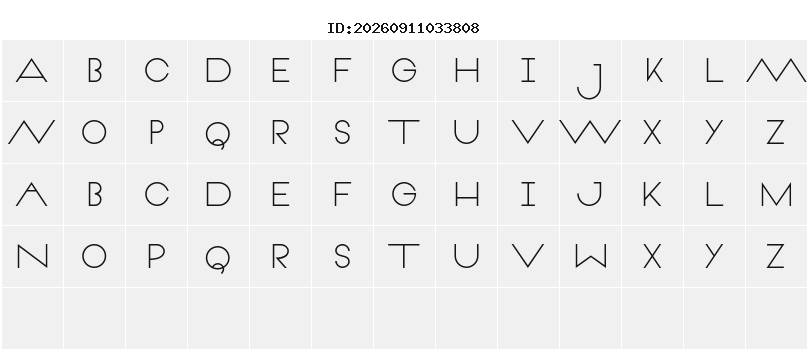
Veron Bold Preview
• Font Name: Veron Bold
• Font ID: PauloR: Veron Bold: 2012
• Full Font Name: VeronBold
• PostScript Name: VeronBold
• Character Count: 53
• Designer: Paulo R
• Manufacturer: Paulo R
About Veron Bold.otf
Veron Bold.otf is a modern, elegant sans-serif font designed for ultimate readability and visual harmony. Perfect for branding, headlines, web design, and print materials.